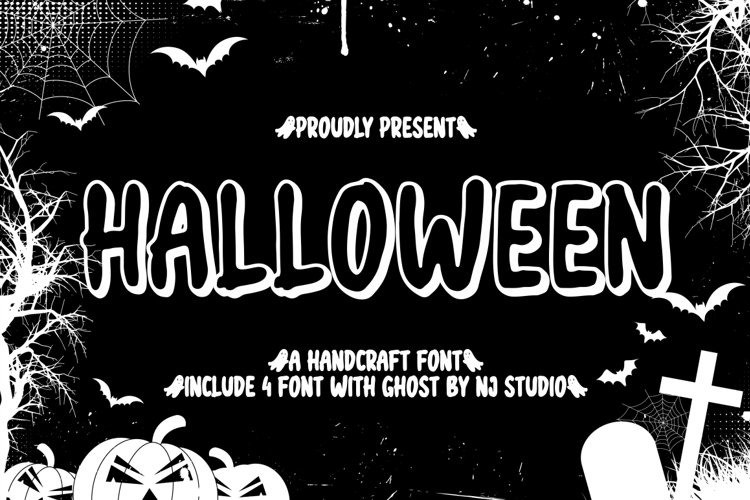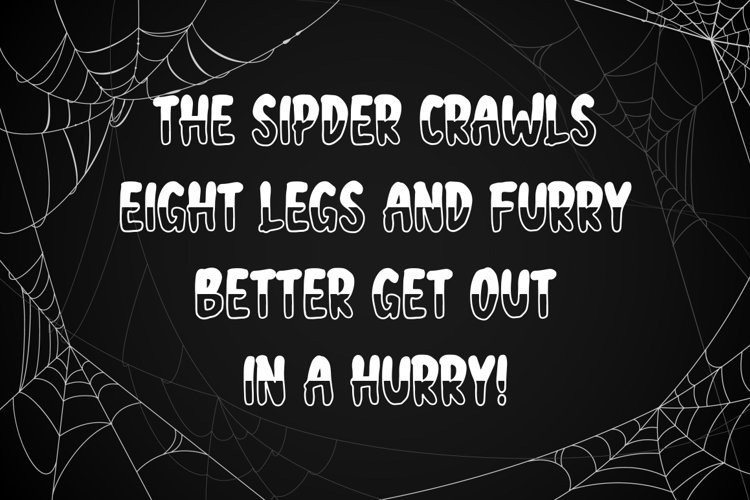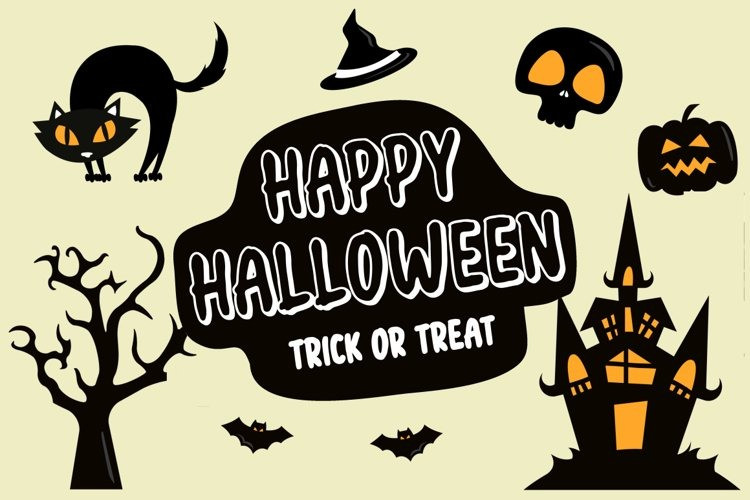
Halloween Display Font
halloween a handcraft font include 4 file font with ghost is a spooky seasonal halloween font. It features halloween-themed characters that will take your projects to the next level!
This font is PUA code which means you can easily access all the glyphs and swashes that are full of halloween-themed! It also features many special features including glyphs and alternate ligatures. font designs that are made for various vector designs, printing such as digital wedding blogs, online shops, social media, while printing can be used in the field of product clothing, accessories, bags, pins, logos, business cards, watermarks and many others …
so it can make your product look spooky and attractive, and also Multilingual support!!!